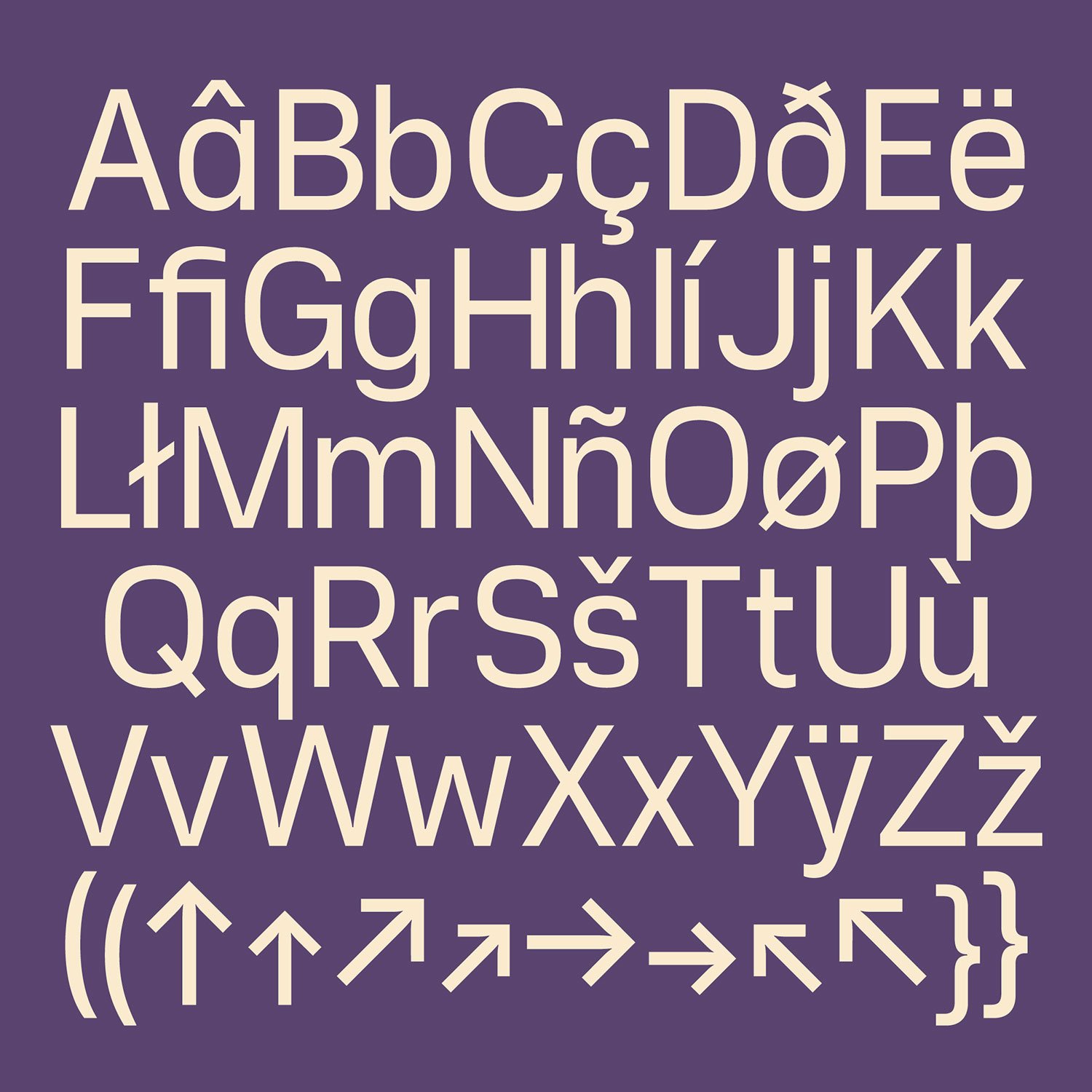
Vercetti Font is a sans serif font inspired by humanistic design with a geometric touch. Its character structure is solid and moderately conventional, inte...